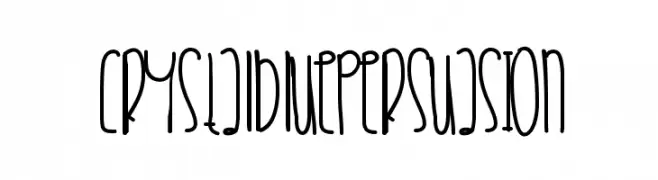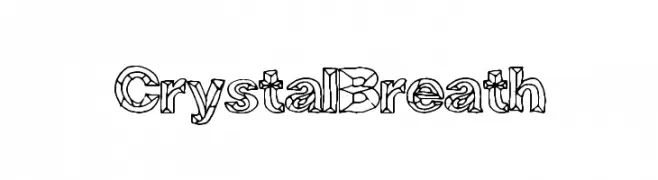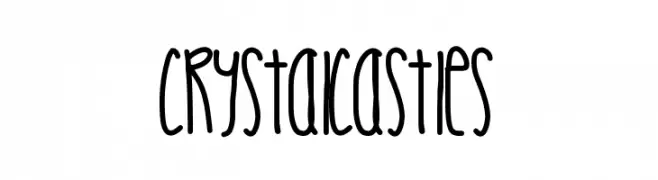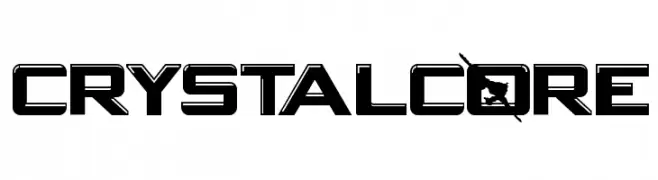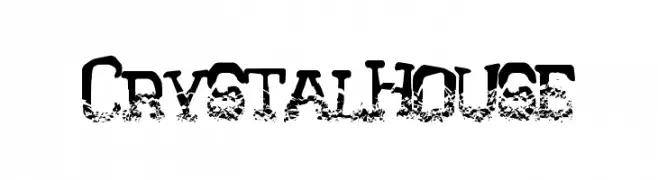
A decorative and intricate font with mystical, calligraphic elements.
A tall, narrow font with a playful, artistic style.
A geometric, crystal-like font with bold outlines and intricate patterns.
A playful, hand-drawn font with tall, narrow characters and whimsical doodles.
A bold, futuristic font with geometric and technological elements.
A bold, futuristic font with sharp angles and a geometric structure.
A bold, distressed font with a rugged, edgy texture.